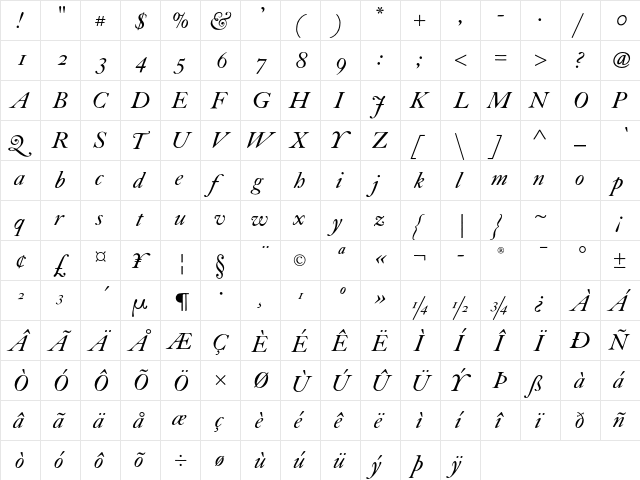
FCaslon Thirty ITC Std Italic
| Designer | Justin Howes |
Design Context for FCaslon Thirty ITC Std Typeface
FCaslon Thirty ITC Std offers clean, dependable letterforms without strong stylistic allegiance, making it a practical choice for designers who need flexibility. Its italic angle brings a sense of urgency and motion to the letterforms.
Pro Tip: Try FCaslon Thirty ITC Std for annotation and caption copy alongside an upright companion — the contrast in angle creates a dynamic but ordered typographic system.